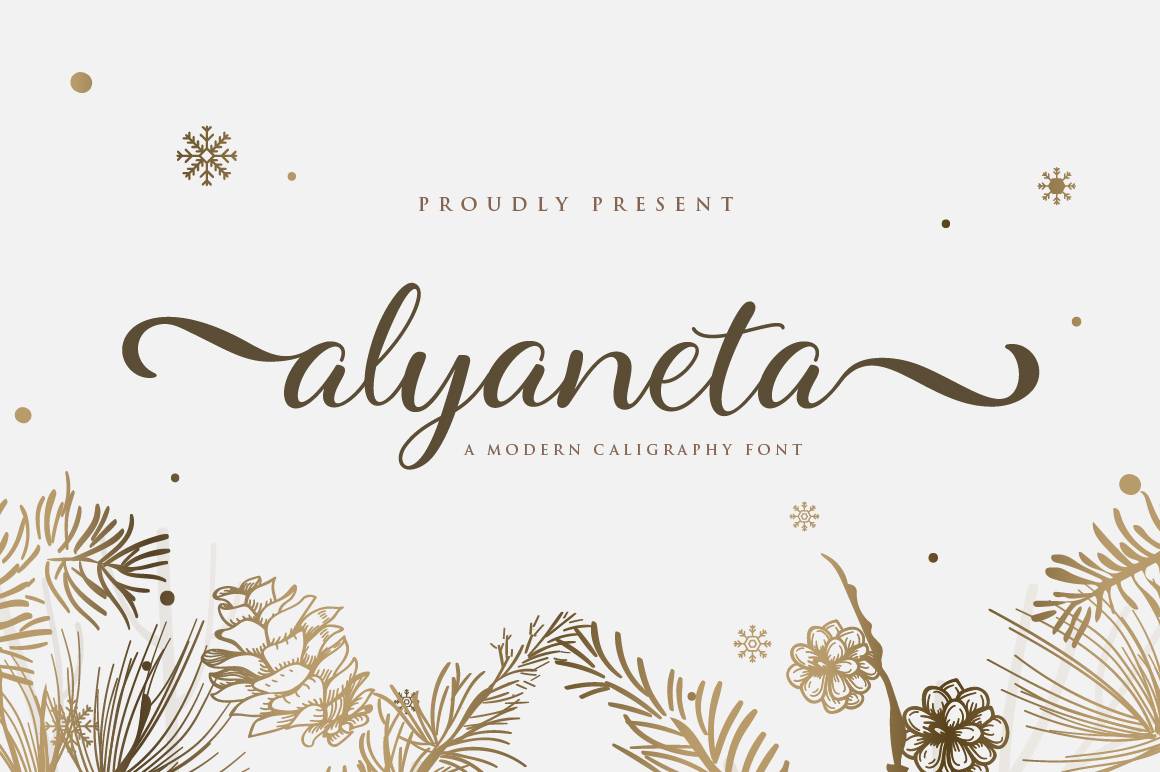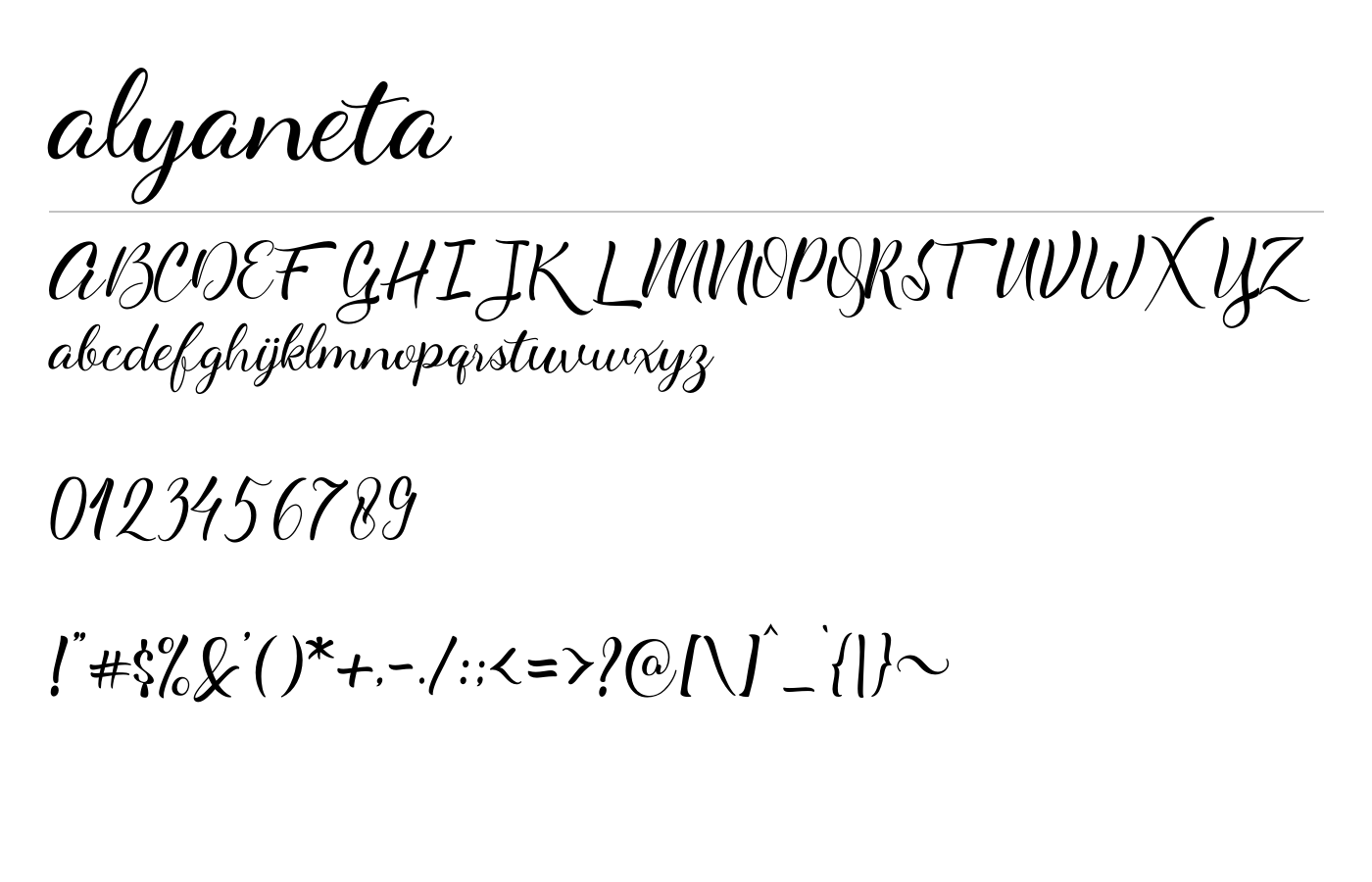
Alyaneta is an elegant script font featuring fluid, stylish letterforms with a smooth, calligraphic flow and medium contrast in stroke weight. Its slightly condensed structure and distinctive swashes lend it a sophisticated, modern feel perfect for upscale branding, invitations, or creative headlines that need a touch of refined personality. This font works beautifully where a graceful, handcrafted look is desired without sacrificing readability.
Alyaneta Font